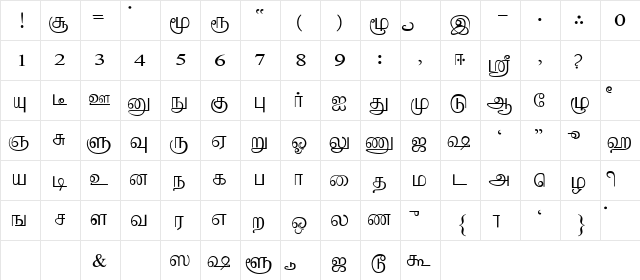
Thamar norm.
Design Context for Thamar Typeface
Thamar offers clean, dependable letterforms without strong stylistic allegiance, making it a practical choice for designers who need flexibility.
Pro Tip: Use Thamar in both headline and body roles to test its range before committing to a single application.